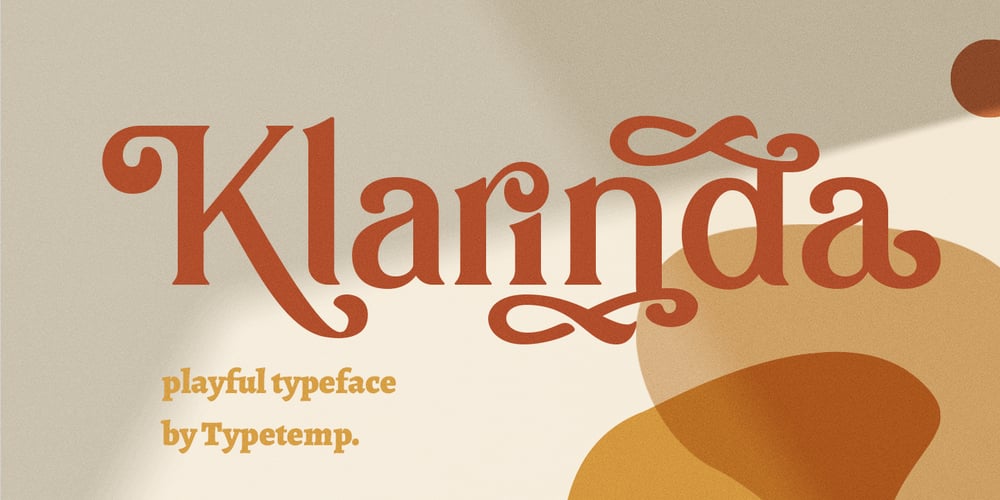
Klarinda Playful Font Family was designed by Egi Ahmad Mufid and published by Typetemp Studio. Klarinda Playful contains 1 styles and family package options. Klarinda Playful Serif a playful-typeface style serif with alternatives and ligatures that create stunning logos, quotes, posts, blog posts. branding projects, magazine imagery, wedding invitations, and much more.